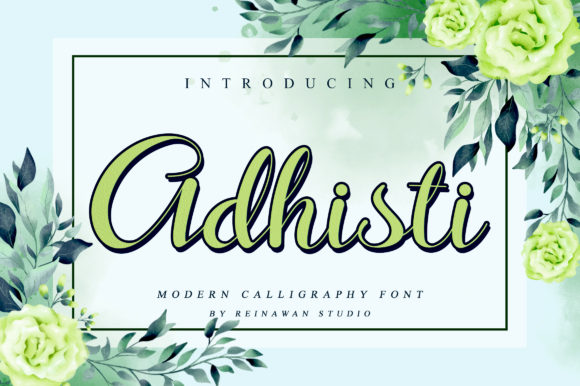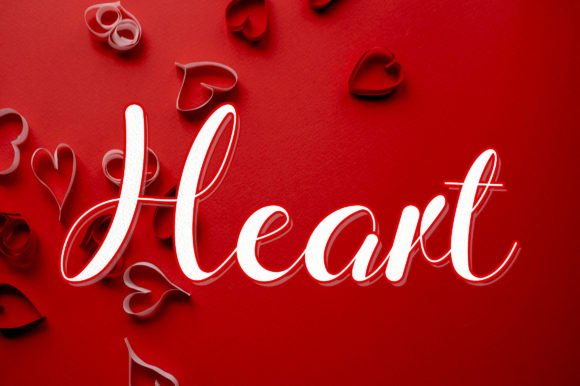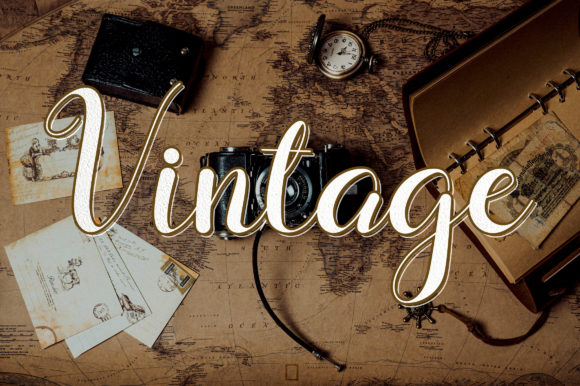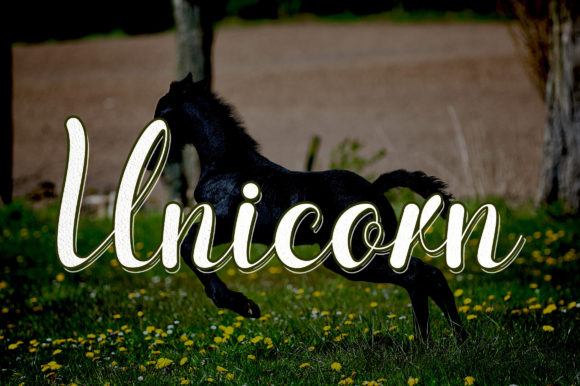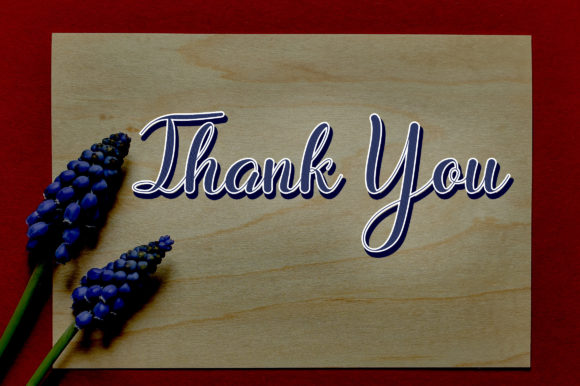
Adhisti Font
About Adhisti Font
Adhisti is a font made for packaging products, mockups, invitation cards, thanksgiving, and all aspects that require high-quality fonts.